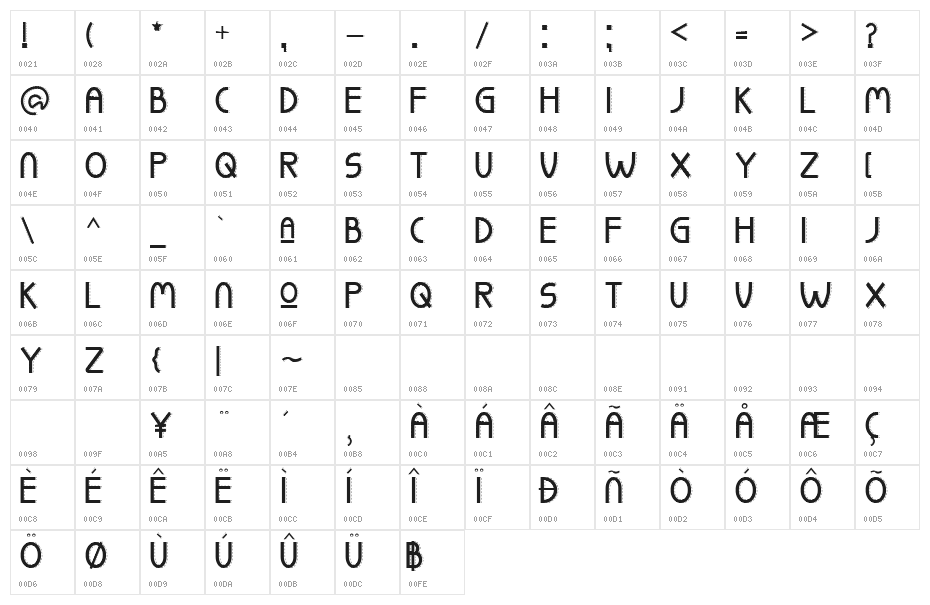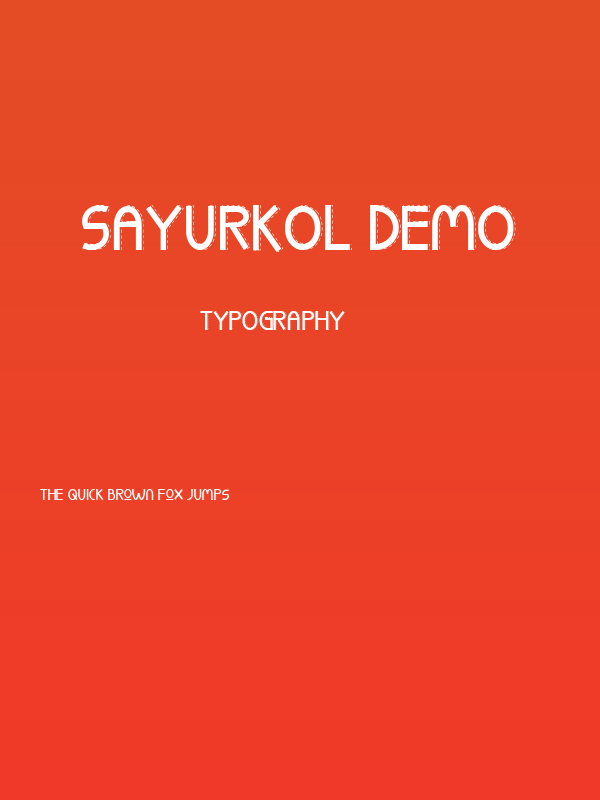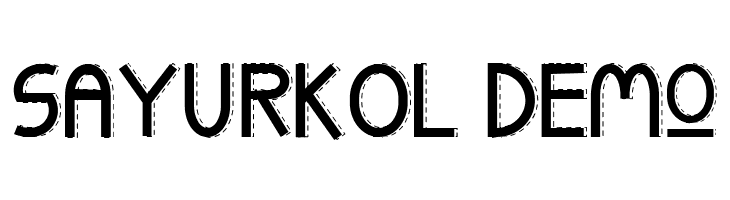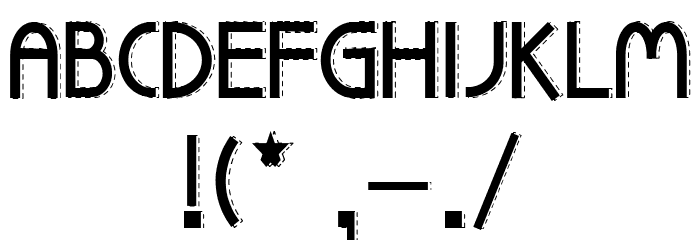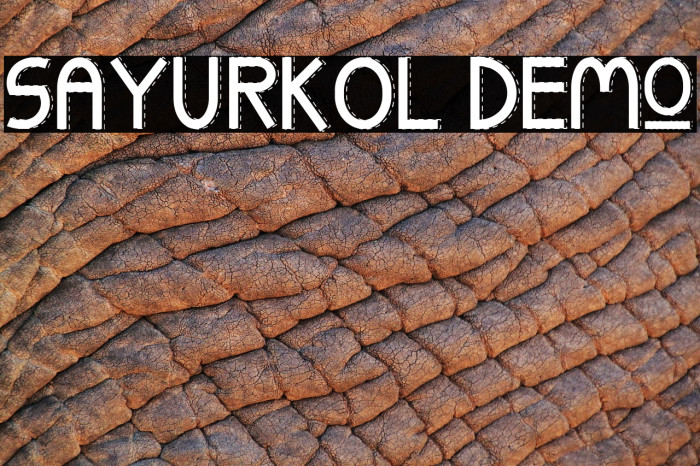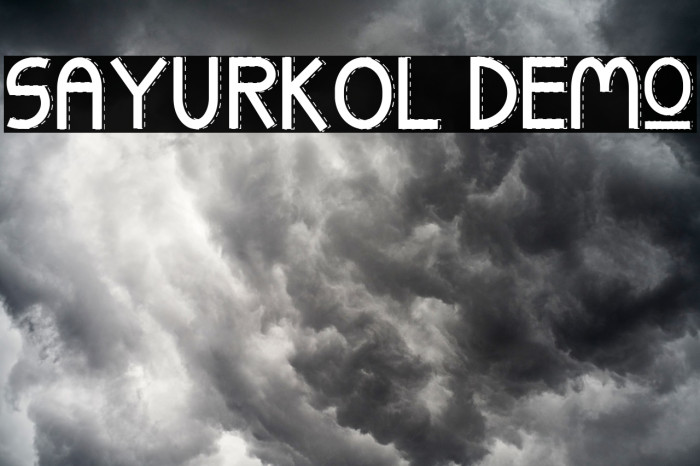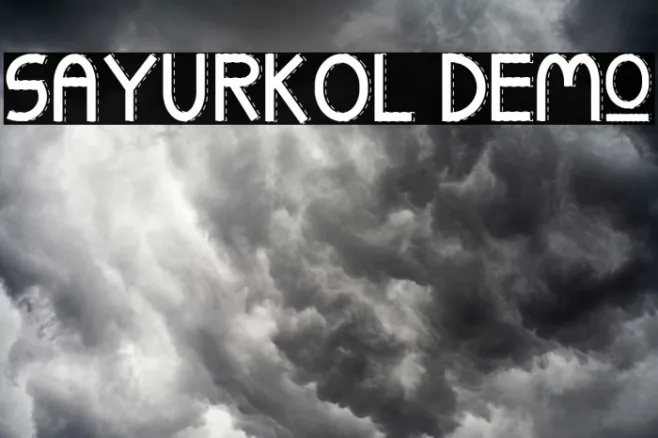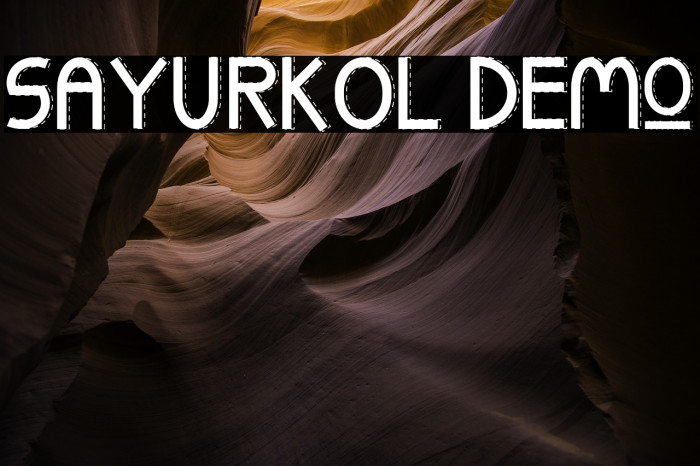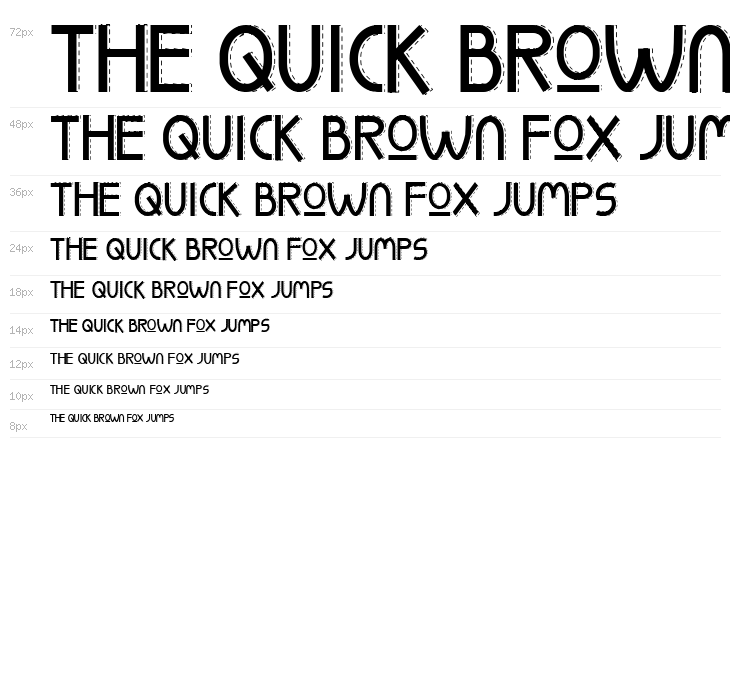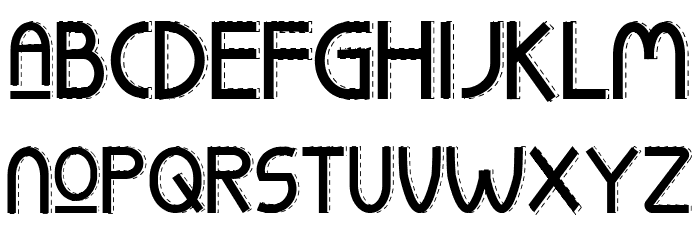
SAYURKOL Demo Font
SAYURKOL Demo Description
This font features a unique and playful design with a dotted outline that gives it a whimsical and decorative appearance. The uppercase and lowercase letters maintain a consistent style, with rounded edges and a uniform stroke width. The numbers and special characters follow the same playful theme, making the font suitable for creative and informal projects. The overall look is modern and eye-catching, with a distinct personality that stands out.
| Proposed Projects | Ideal for children's books, playful branding, party invitations, and creative posters. |